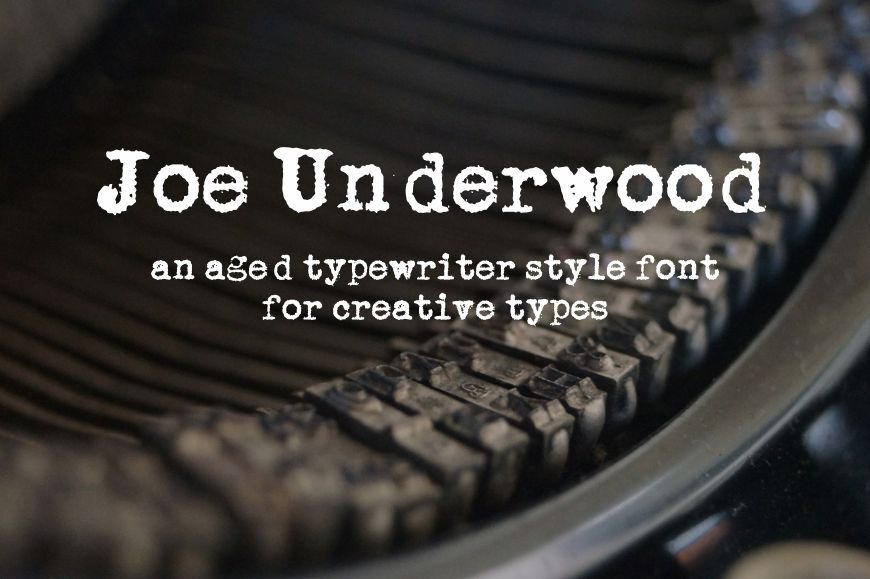
Joe Underwood Typewriter Font
Introducing Joe Underwood, an aged typewriter style font for creative types.
The Underwood typewriter has been described as "the first truly modern typewriter". Two million had been sold by the early 1920s, and its sales “were equal in quantity to all of the other firms in the typewriter industry combined”.
This Joe Underwood font was digitally recreated from a 1928 Underwood typewriter which had 43 character buttons. Several characters were added to merge antique type to the modern world of digital fonts. Joe Underwood has 130 characters including uppercase, lowercase, numerals, special characters such as the Euro, bitcoin, trademark, copyright and more.